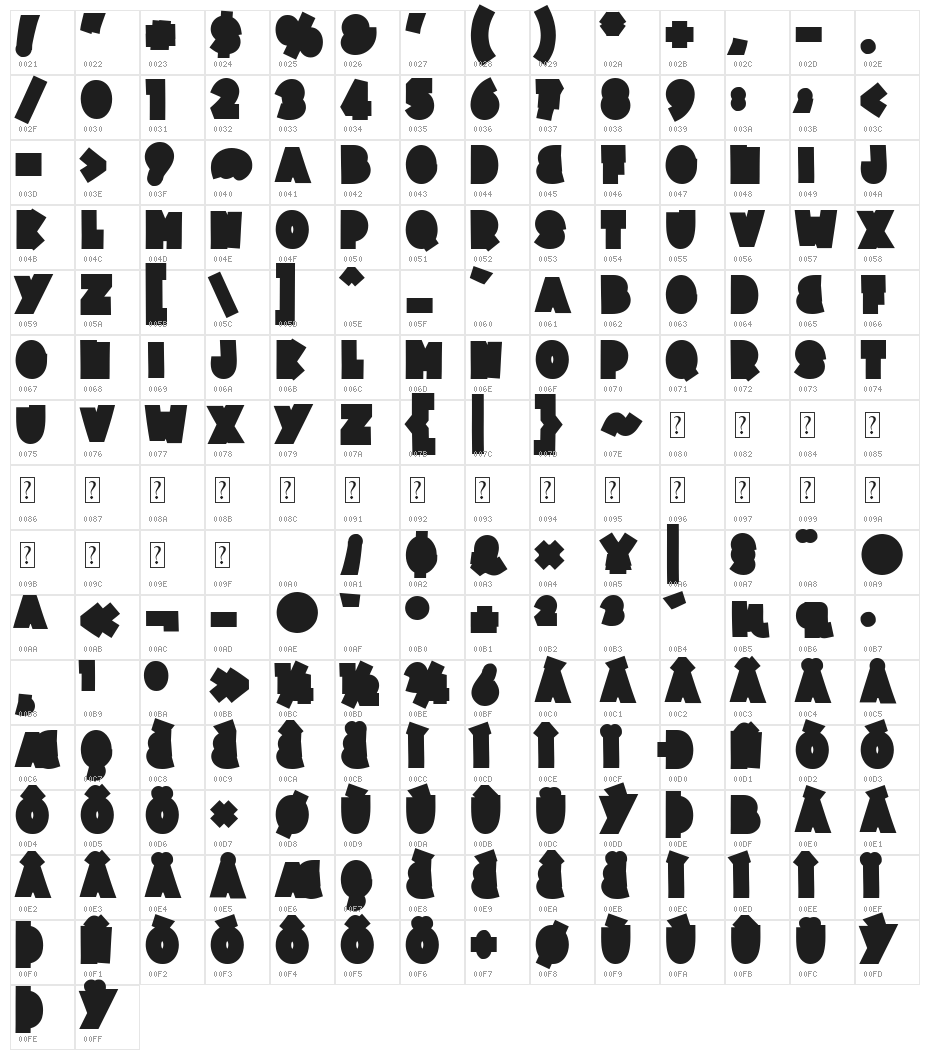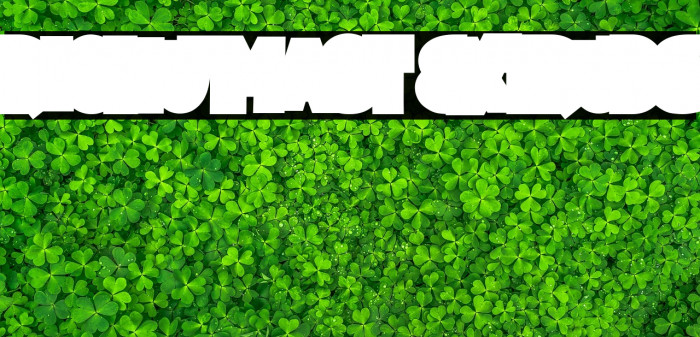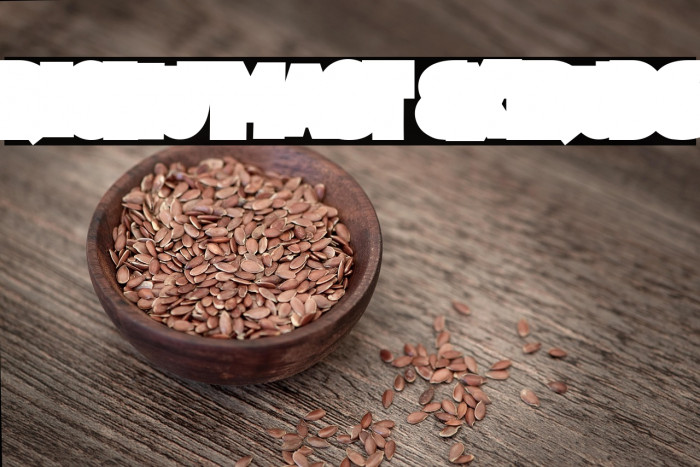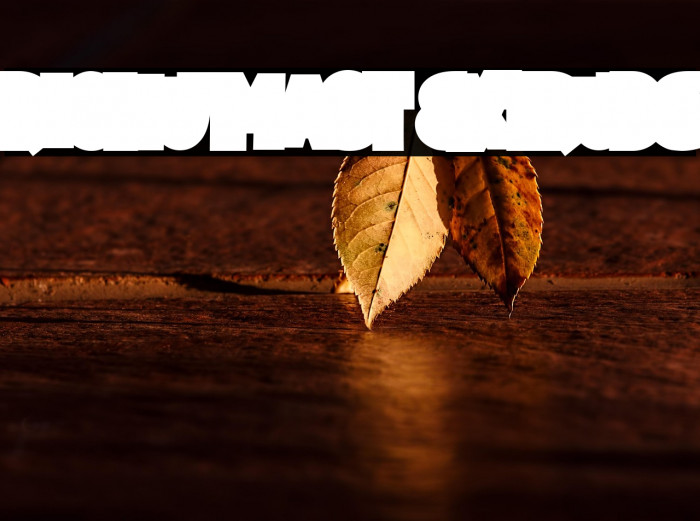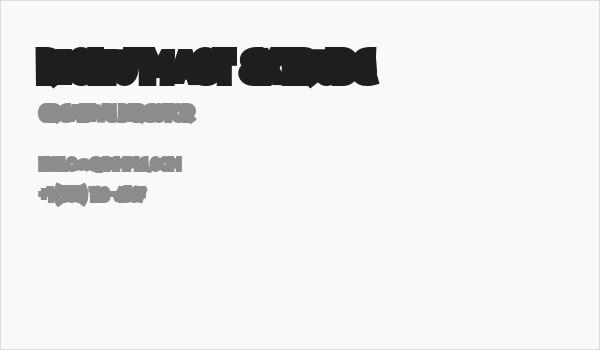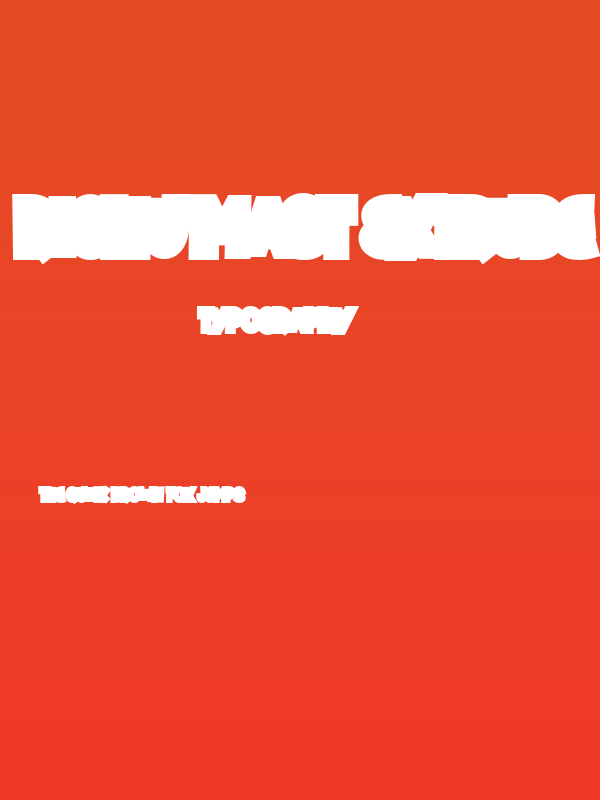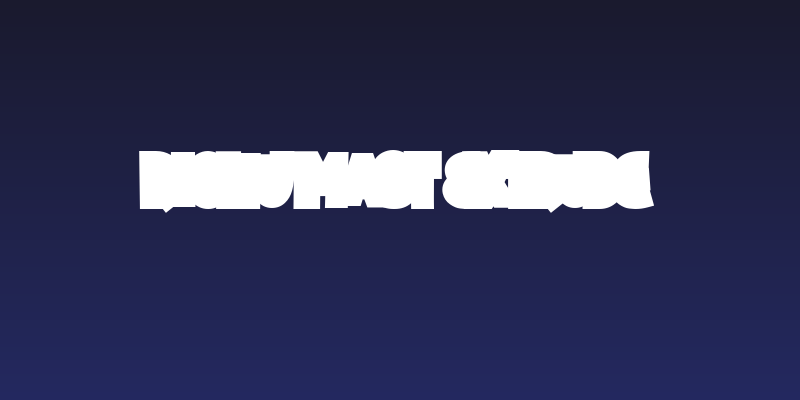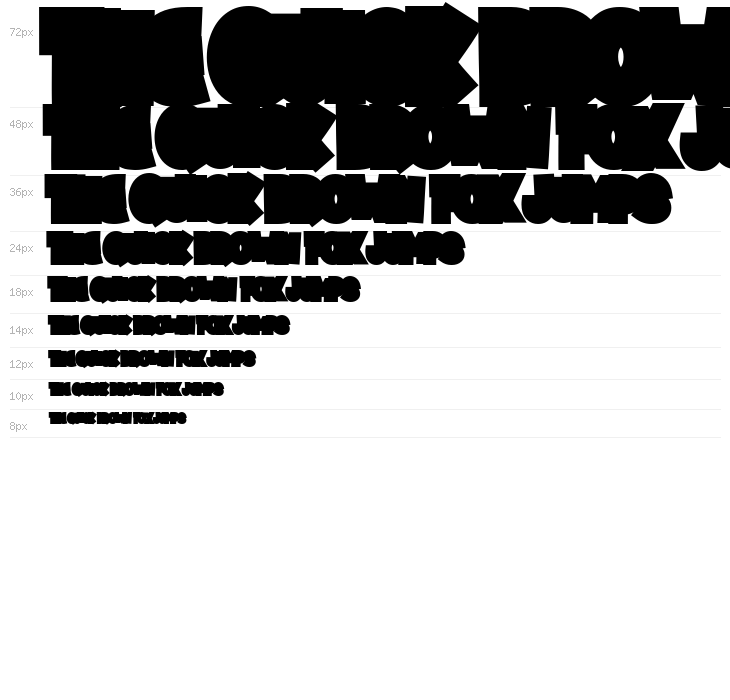
Richu Mast Extrude Font
Richu Mast Extrude Description
This font features a bold and impactful design with thick, blocky letters that have a three-dimensional extruded effect. The characters are tightly spaced, creating a sense of unity and strength. The uppercase and lowercase letters maintain a consistent weight, contributing to the font's robust appearance. The numbers and special characters are equally bold, ensuring they stand out in any design. This font's style is highly decorative, making it suitable for projects that require a strong visual presence.
| Proposed Projects | Ideal for posters, headlines, logos, and any design requiring a bold statement. |